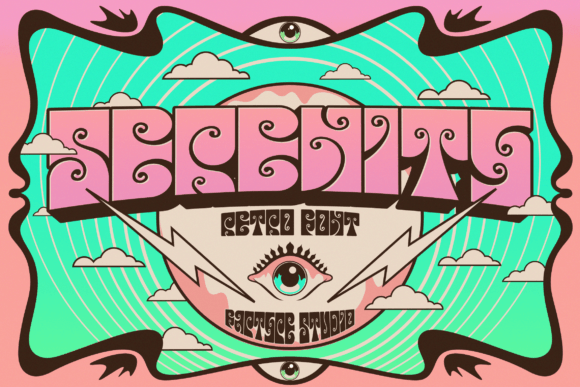
Embark on a typographic odyssey with Serenity Font, a captivating display creation from Ardana Creative. This distinctive font is an artistic melange of vintage allure and contemporary elegance, evoking the charm of yesteryears while embracing modern sensibilities. Visualize the allure of its squared appearance, reminiscent of classic typography, subtly intertwined with a refreshing contemporary flair.
Serenity Font grants you the creative freedom to infuse your designs with a personalized touch, thanks to its extensive collection of alternates for each character. Explore the nuances of your design vision and create text that uniquely resonates with your aesthetic intent.
But Serenity Font doesn't stop there. Its additional styles, Rounded and Extruded, expand your creative horizons even further. The Rounded style introduces a softer touch to the font's character, while the Extruded style adds a dynamic depth that commands attention. Combine the regular version with the Extruded style, and you'll effortlessly conjure stunning retro 3D designs that deftly capture the essence of nostalgia in a modern context.
Serenity Font is more than just a font; it's a powerful toolkit that empowers you to unleash your creativity in boundless ways. Envision the possibilities: vintage-themed branding, captivating signage, and packaging that transcends time and captivates the imagination. With Serenity Font, the creative possibilities are as limitless as your imagination.
Join the creative revolution with Serenity Font, and redefine the boundaries of visual storytelling with every stroke of the font. Its versatile nature is a gift to your artistic vision, empowering you to create designs that carry the timeless essence of vintage charm while resonating with the modernity of today. Experience the transformative power of Serenity Font and elevate your designs to new heights of brilliance.